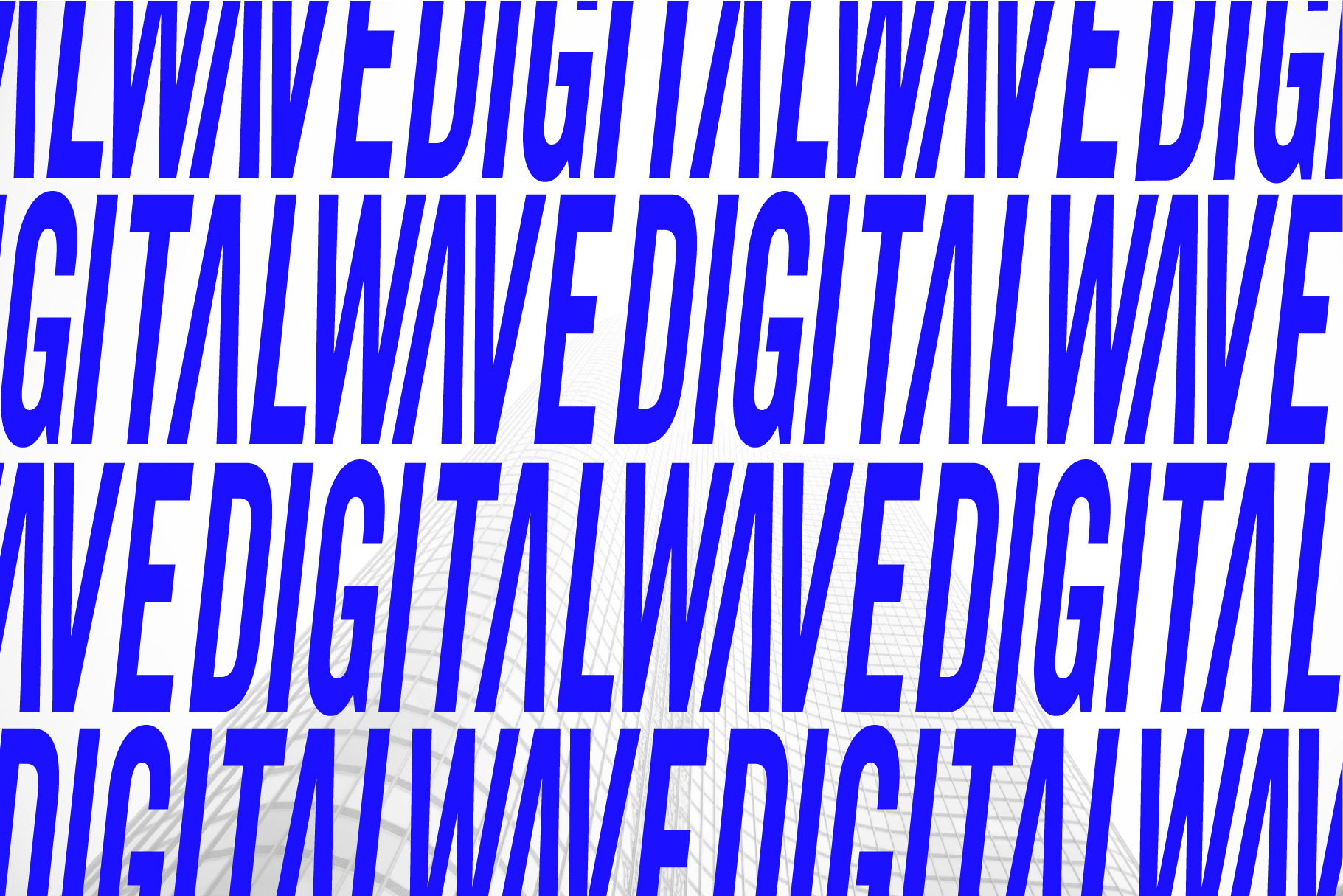
DIGITAL WAVE - ITALIC CAPS FONT
We are very pleased to present you our new Digital Wave Font! Digital Wave can be used to present your ideas in business or sports sphere, in advertisements and large headlines. This font is ideal to help you with presentation’s creating, gift cards and posters or social media design. Add some uniqueness to your works with new designed font!